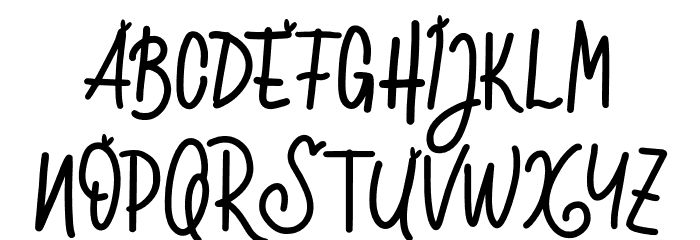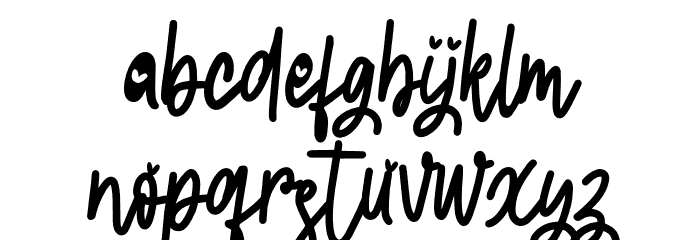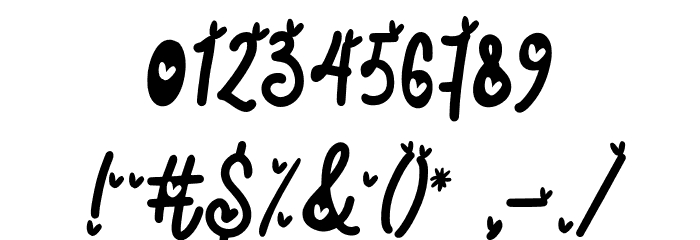
LovelyFREE Font
This font exhibits a playful and whimsical style, characterized by its handwritten appearance. The uppercase letters are bold and slightly irregular, giving them a lively and dynamic feel. The lowercase letters maintain a consistent flow, with some characters featuring unique loops and curls that add to the font's charm. Numbers are bold and rounded, complementing the overall aesthetic. Special characters are creatively designed, maintaining the font's playful nature. This font is perfect for projects that require a personal and informal touch.
A playful, handwritten font with bold, dynamic characters and whimsical details.
- Font: LovelyFREE
- Proposed Projects: Ideal for greeting cards, children's books, playful branding, and social media graphics.
- Category: Handwritten
- Overall Style: Playful
- Use Case: Logos, Headlines, Informal Text